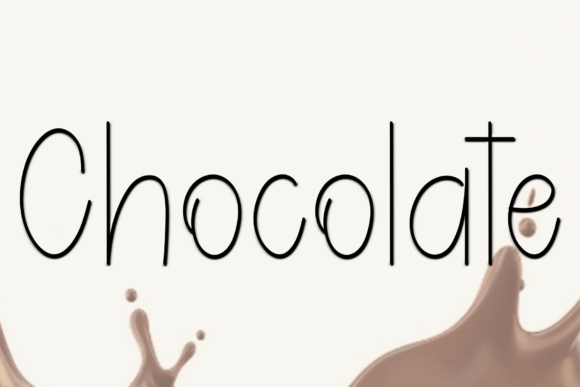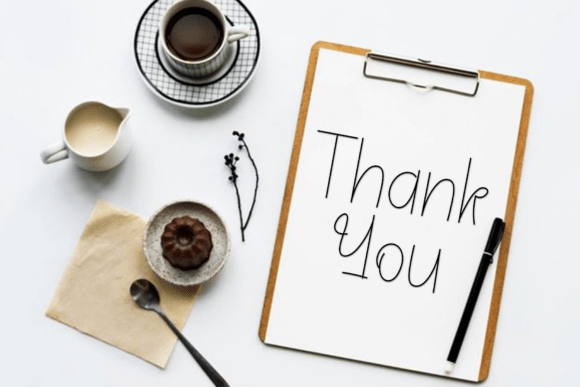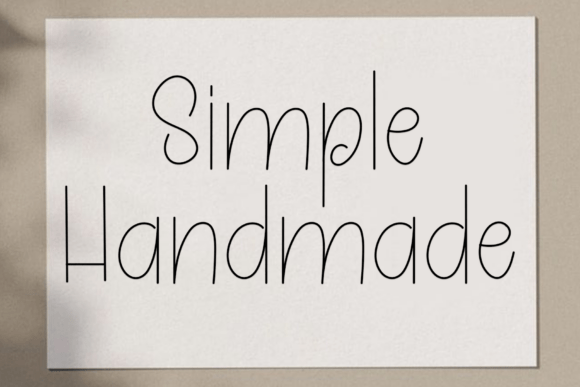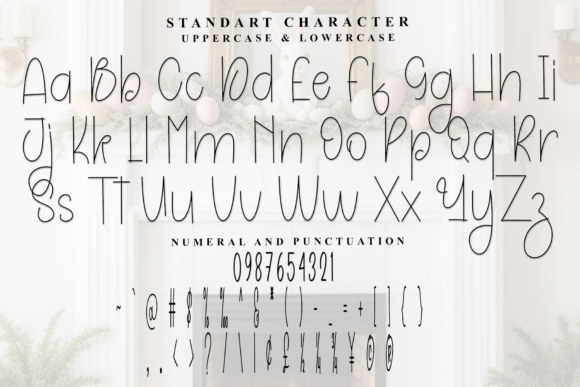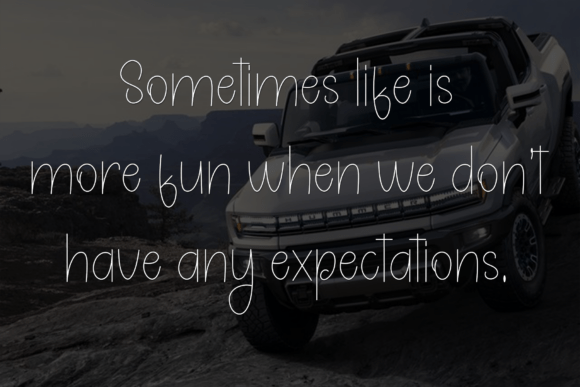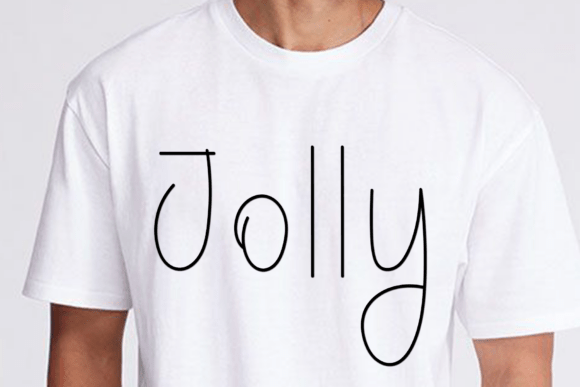
Introducing Good Morning Font: A Fresh and Airy Sans Serif for Your Creative Projects
Are you looking for a font that can bring a sense of fresh morning energy to your creative projects? Look no further than Good Morning Font, a lighthearted and airy sans serif typeface designed to capture the warmth and sincerity of a handwritten note. With its ultra-thin, delicate strokes and playful, hand-drawn loops, Good Morning Font is the perfect choice for designers and crafters who want to add a touch of organic beauty to their work.
Unique Characteristics of Good Morning Font
Good Morning Font features a unique, artisanal personality that sets it apart from other sans serif fonts. Its tall, condensed structure and rhythmic flow make it ideal for use in wellness branding, inspirational social media quotes, boutique stationery, and gentle editorial layouts. The font’s ultra-thin strokes give it a delicate, airy feel, while its playful loops add a touch of whimsy and personality.
Perfect for Wellness Branding and Inspirational Content
Good Morning Font is particularly well-suited for use in wellness branding and inspirational content. Its fresh, morning energy is perfect for brands that value sincerity, light, and organic beauty. Whether you’re creating social media graphics, blog posts, or marketing materials, Good Morning Font can help you convey a sense of positivity and warmth. Its professional clarity and modern feel make it an ideal choice for businesses that want to stand out in a crowded market.
Adding a Touch of Handwritten Warmth to Your Designs
One of the unique benefits of Good Morning Font is its ability to capture the warmth and sincerity of a handwritten note. Its hand-drawn loops and delicate strokes give it a personal, artisanal feel that’s perfect for designers and crafters who want to add a touch of personality to their work. Whether you’re creating boutique stationery, editorial layouts, or social media graphics, Good Morning Font can help you create a sense of connection and intimacy with your audience.
Key Features of Good Morning Font
- Lighthearted and airy sans serif font
- Ultra-thin, delicate strokes
- Playful, hand-drawn loops
- Tall, condensed structure
- Rhythmic flow
- Perfect for wellness branding, inspirational social media quotes, boutique stationery, and gentle editorial layouts
Tips for Using Good Morning Font in Your Designs
Here are a few tips for using Good Morning Font in your designs:
- Use Good Morning Font to add a touch of personality to your social media graphics and marketing materials.
- Pair Good Morning Font with other sans serif fonts to create a clean, modern look.
- Use Good Morning Font to create inspirational quotes and motivational content.
Good Morning Font is a fresh and airy sans serif typeface that’s perfect for designers and crafters who want to add a touch of organic beauty to their work. With its ultra-thin strokes, playful loops, and tall, condensed structure, Good Morning Font is ideal for use in wellness branding, inspirational social media quotes, boutique stationery, and gentle editorial layouts. Whether you’re looking to create a sense of positivity and warmth or simply want to add a touch of personality to your designs, Good Morning Font is an excellent choice.